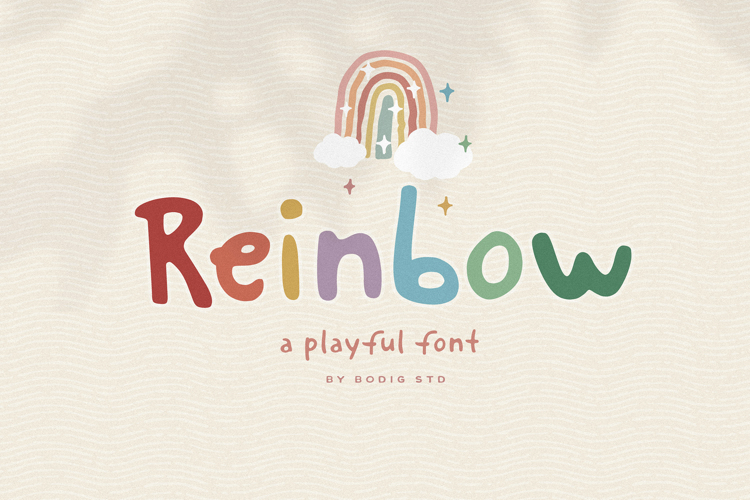
Reinbow Font
About Reinbow Font
Reinbow is a playful font, bold solid lines make it easy to read and its conservative bends aren’t overwhelming to the eyes. A balanced fusion of playful and professional-lettered display font. Add this font to your creative ideas and notice how it will make them stand out!